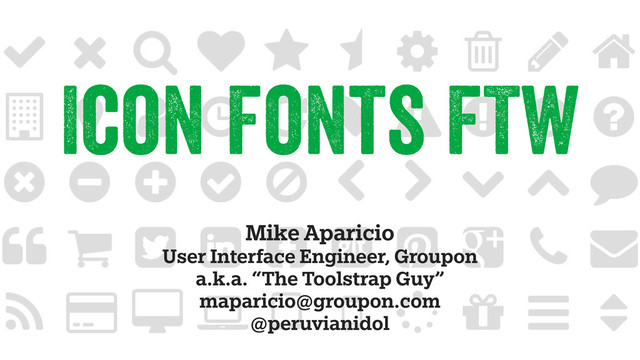
Icon Fonts FTW
An overview of icon fonts with tips and tools for creating and using them. A lightning talk presentation for Geekfest, Tuesday, April 2, 2013.
1. Why Sprites Suck •Difficult to maintain •One giant file; may
contain unnecessary icons •Icons look like ass on high pixel density displays (Retina) •Browsers don’t print background images by default
3. GROUPON SPRITE INVENTORY •Different sizes, colors, opacity •Mix of flat,
gradients, shadows •Different icons representing similar concepts •Janky, outdated social icons •No visual cohesion •Pixelated when zoomed in
4. Making an Icon Font •Select icons from libraries and/or import
your own SVGs •Edit tags to name your icon •Select Private Use Area encoding for best results, accessibility •Base64 encode icons in CSS if you’re really hard core •Name your font •Save your font to JSON •Download your font